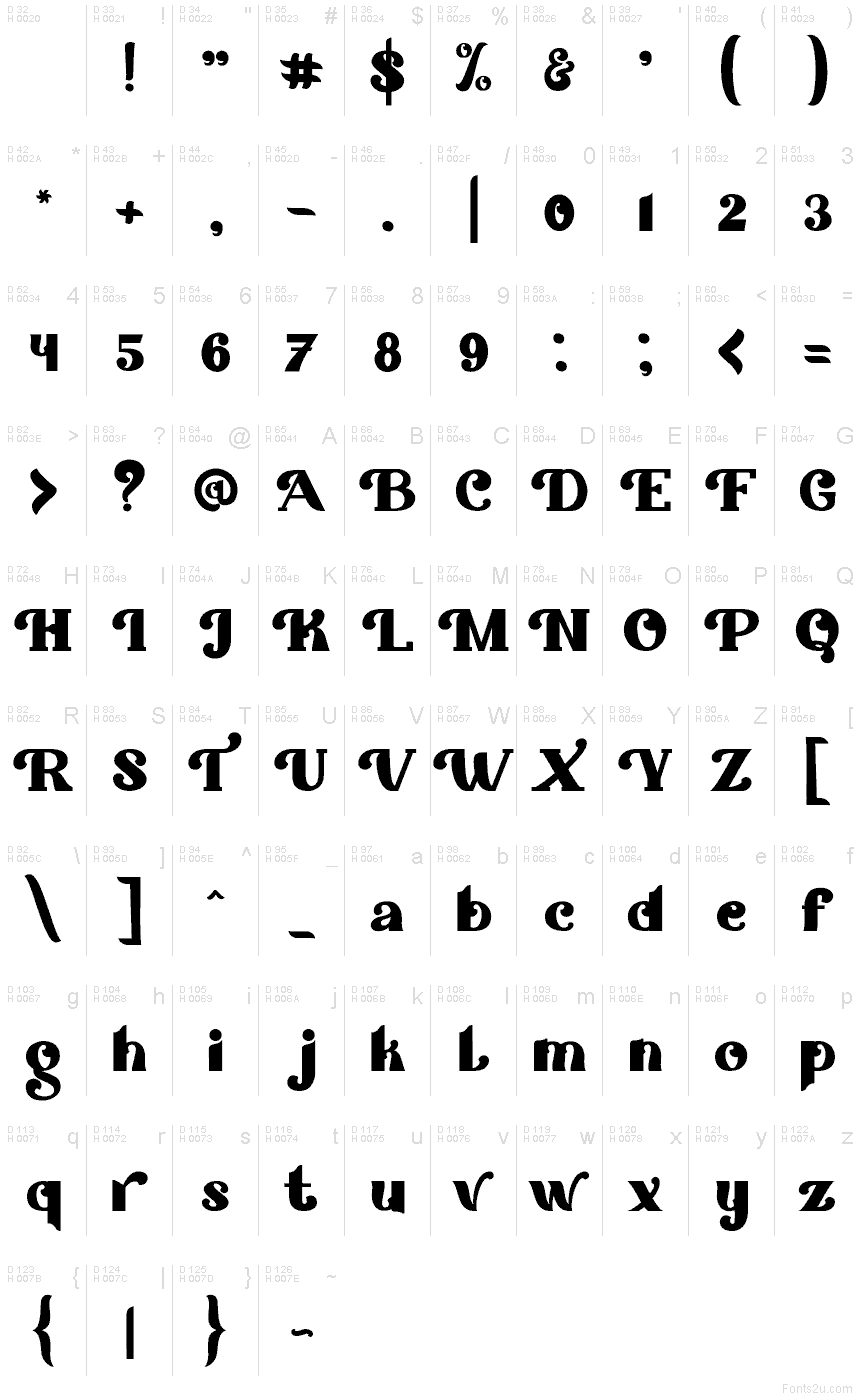
Ragwort
Ragwort font by PutraCetol Studio is an ornamental bold display type with wonderfully decorative details. The extraordinary characters bring it a whimsical flair similar to what you would find in fairy tales, fantastical stories, and unique concepts. Reminiscent of Victorian-era typography, the font brings that iconic look to contemporary designs that deserve a touch of emotion.
A rich historical reference makes Ragwort ideal for fantasy book covers, branding related to children’s products and fairytales, posters, advertisements, product packaging design, distinctive phrase logos, cards graphic design (invitations greeting cards thank you cards) concept art educational material (games presentations books), social media digital posts or illustrations artwork web design apps magazine headlines campaigns merchandise etc.